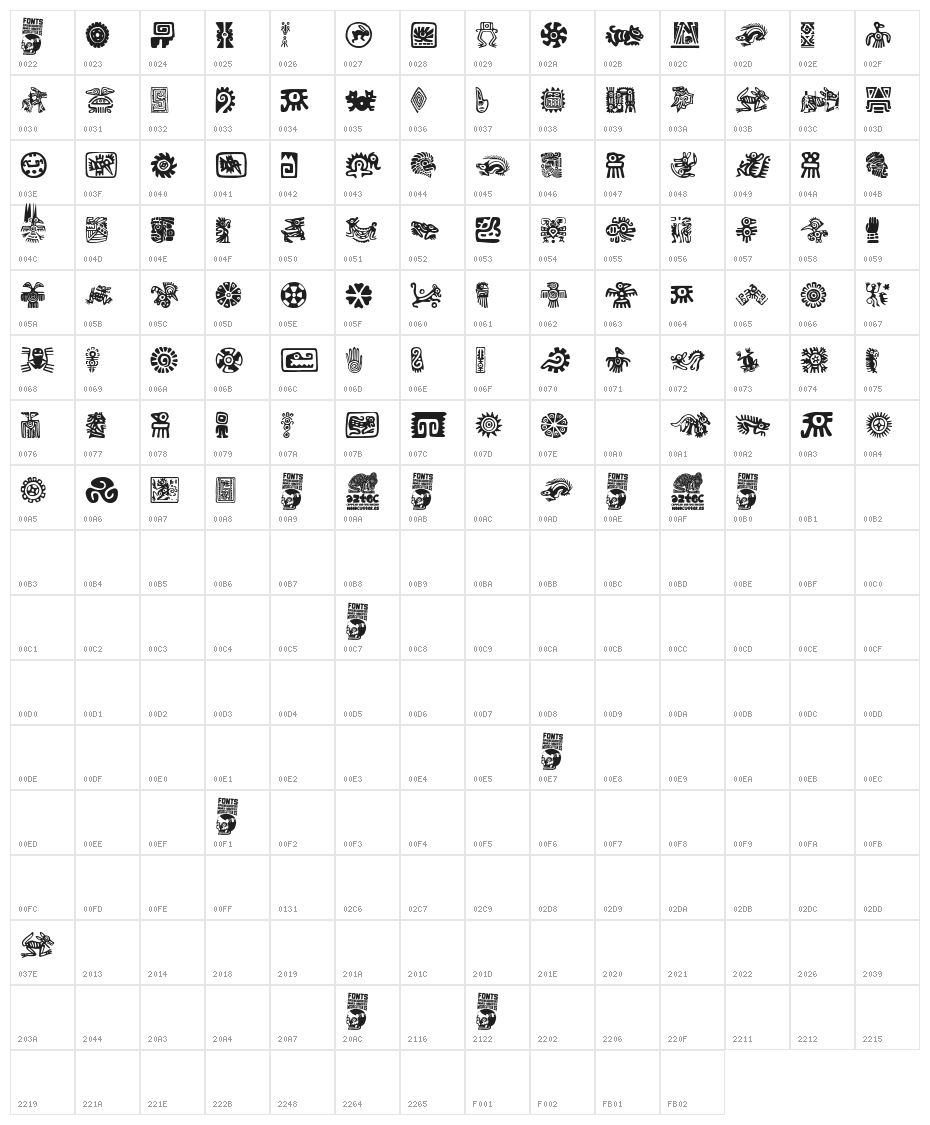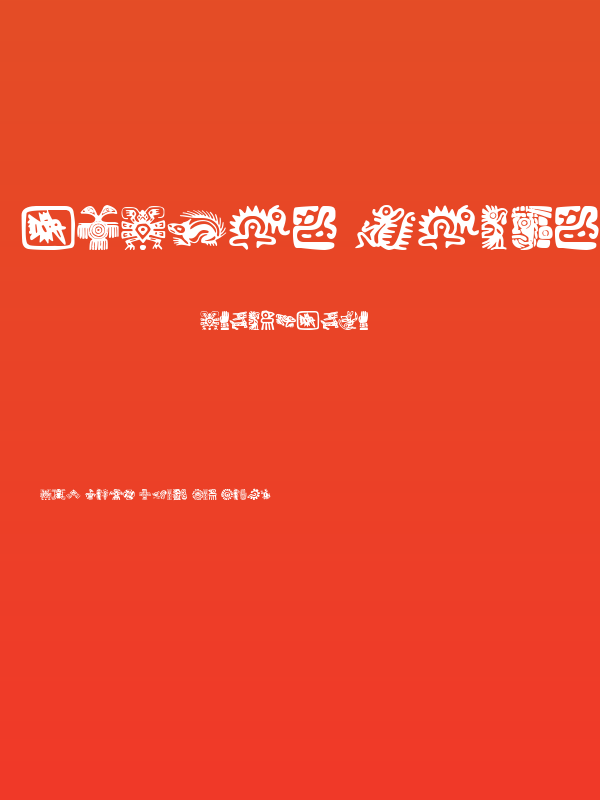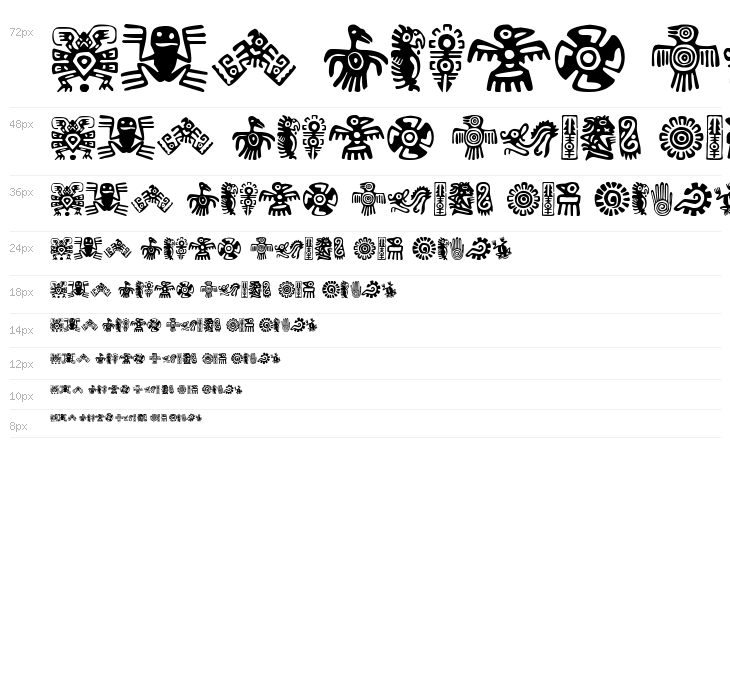
Aztecs Icons Font
Aztecs Icons Description
A highly decorative set of glyphs inspired by Aztec iconography, featuring bold, intricate, and abstract shapes resembling animals, people, and symbols. The style is pictorial rather than typographic, with each character appearing as a unique illustration.
| Overall Style | Decorative, Ethnic, Pictorial |
| Use Case | Logos, Posters, Decorative elements, Themed graphics |
| Proposed Projects | Cultural posters, themed branding, educational materials, art projects, event invitations, decorative borders. |